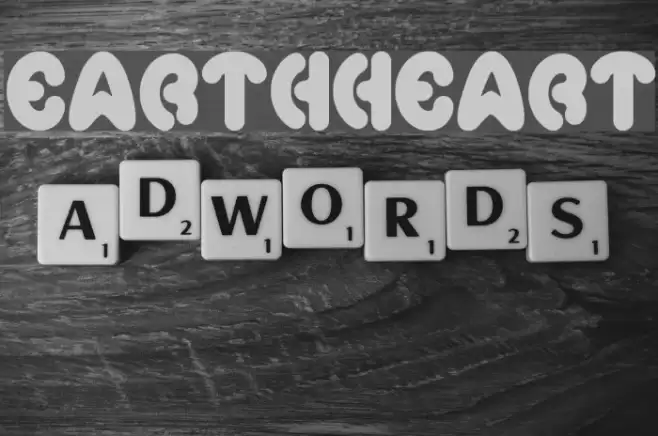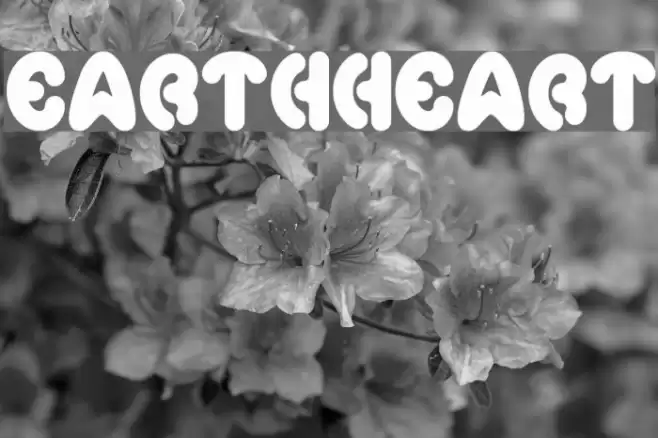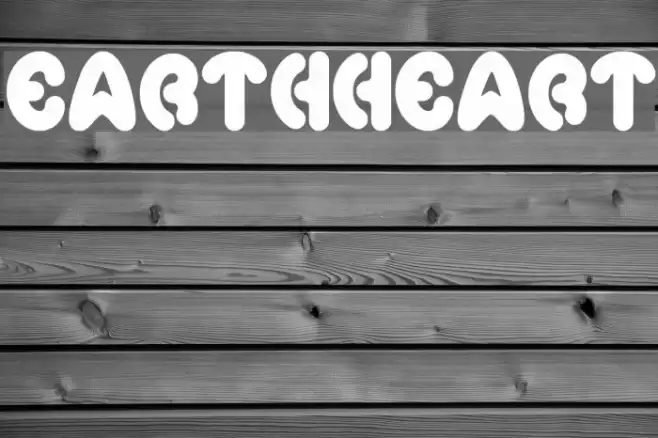
earthheart Font
earthheart Description
This font features a bold, rounded style with a playful and decorative appearance. The characters are thick and have a bubbly, almost cartoonish quality, making them stand out with a unique flair. The strokes are consistent in width, contributing to a cohesive look across all letters. The font's design is eye-catching and would be suitable for projects that require a fun and engaging aesthetic. Its boldness ensures high visibility, making it ideal for attention-grabbing headlines or creative branding materials.
A bold, rounded, and playful decorative font with a cartoonish style from Uncategorized fonts.
- Proposed Projects: Ideal for children's books, playful branding, posters, and creative advertising campaigns.
- Overall Style: Playful, Decorative